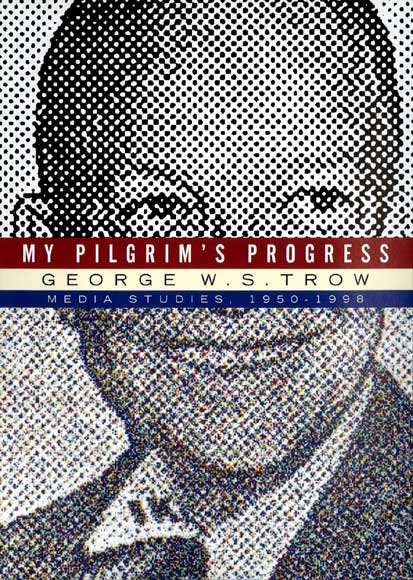
Can anyone help with these 2 or 3 sans serifs on this book cover ???
Top one should be: http://new.myfonts.com/fonts/linotype/trade-gothic/bold-condensed-no-20-...
The others look basically like: http://new.myfonts.com/fonts/bitstream/engravers-gothic/ ...but got different numbers, G, etc.
Top one should be:
http://new.myfonts.com/fonts/linotype/trade-gothic/bold-condensed-no-20-...
The others look basically like:
http://new.myfonts.com/fonts/bitstream/engravers-gothic/
...but got different numbers, G, etc.